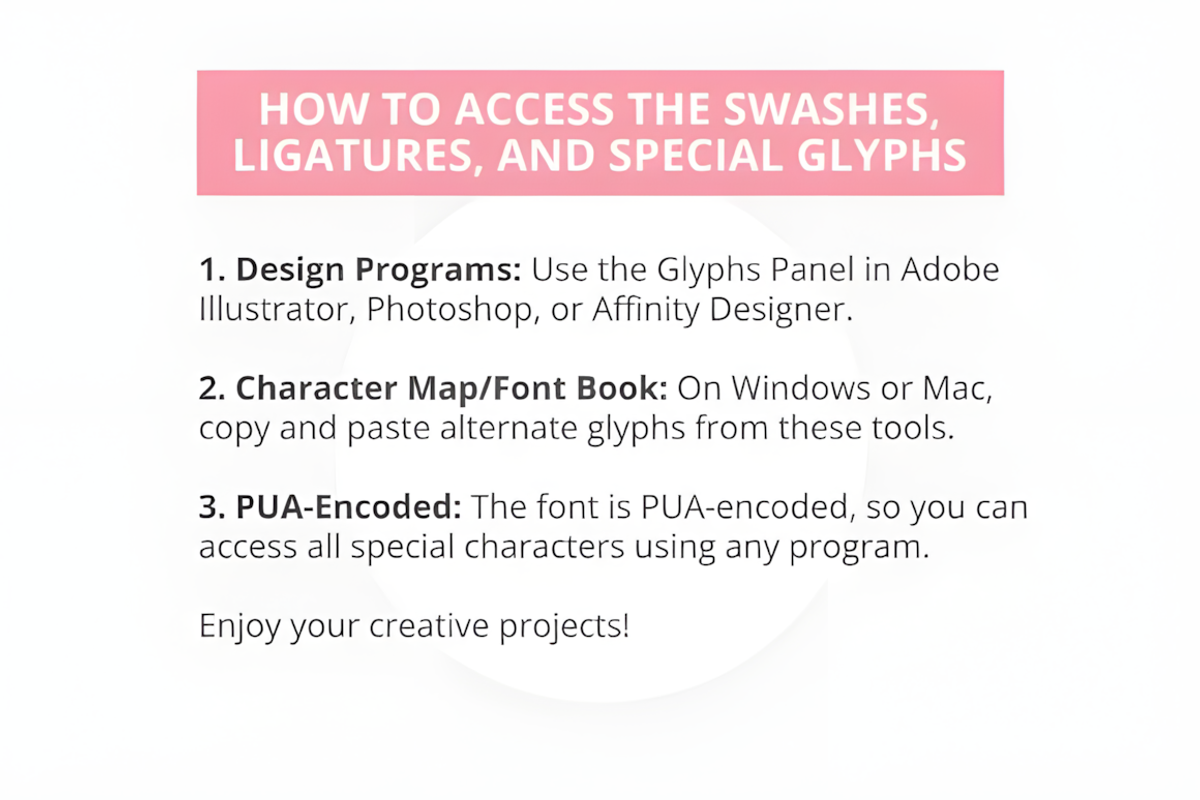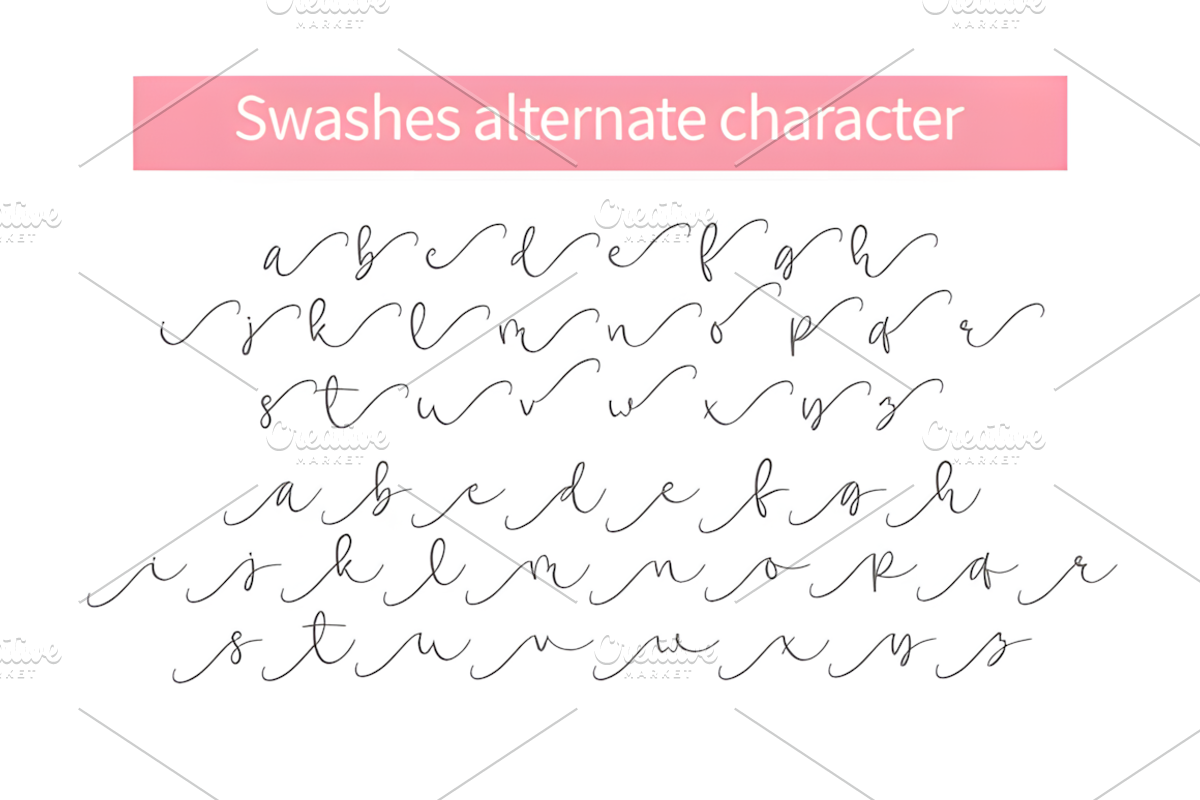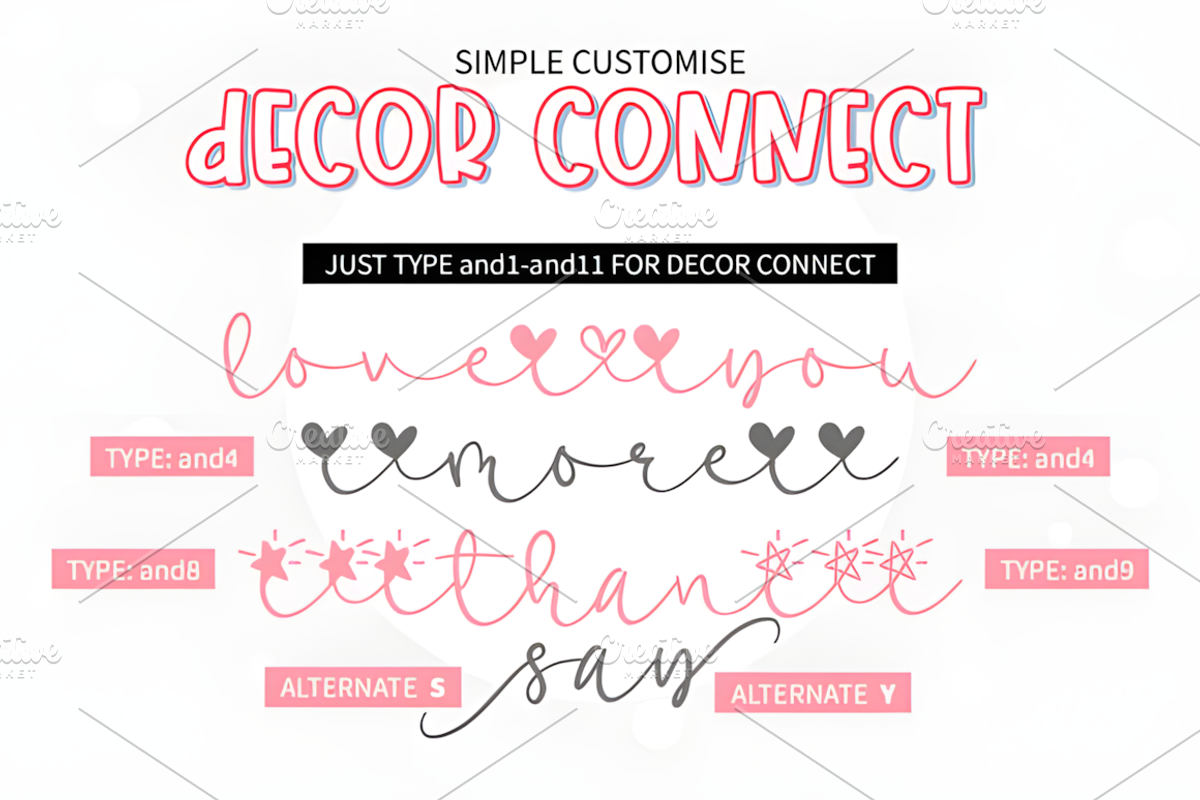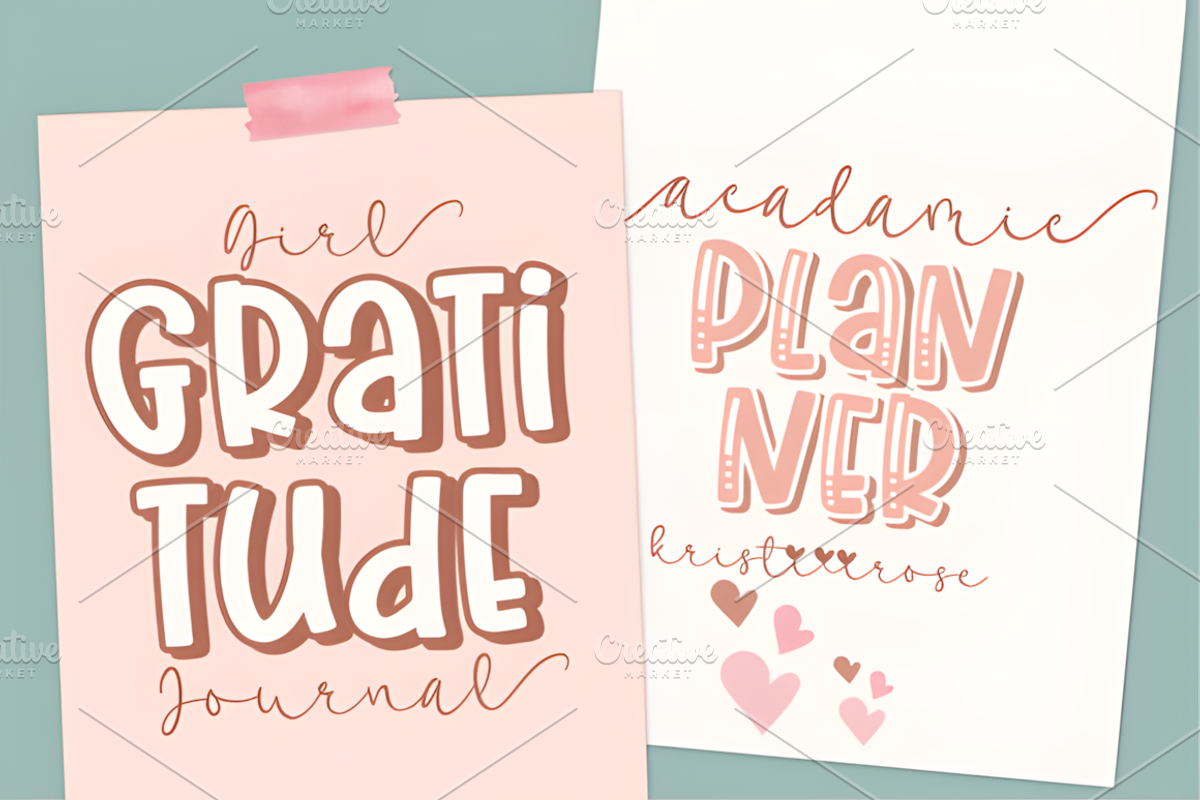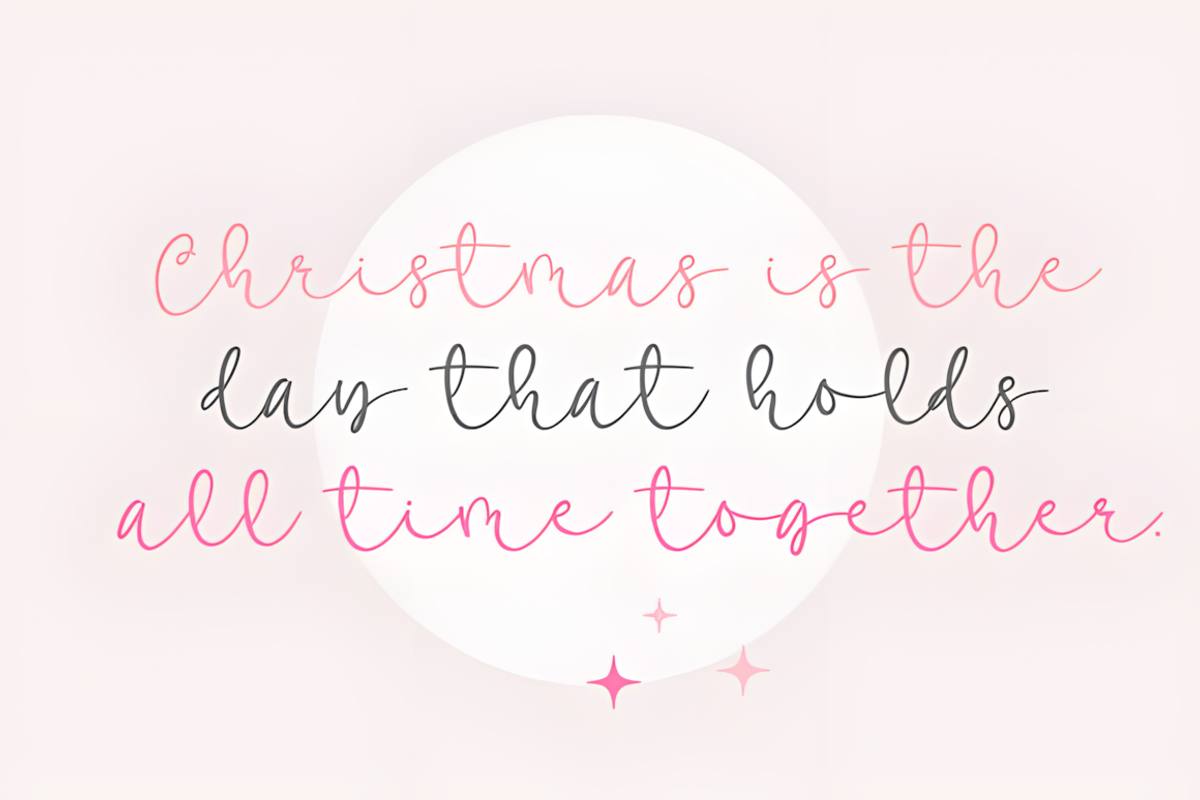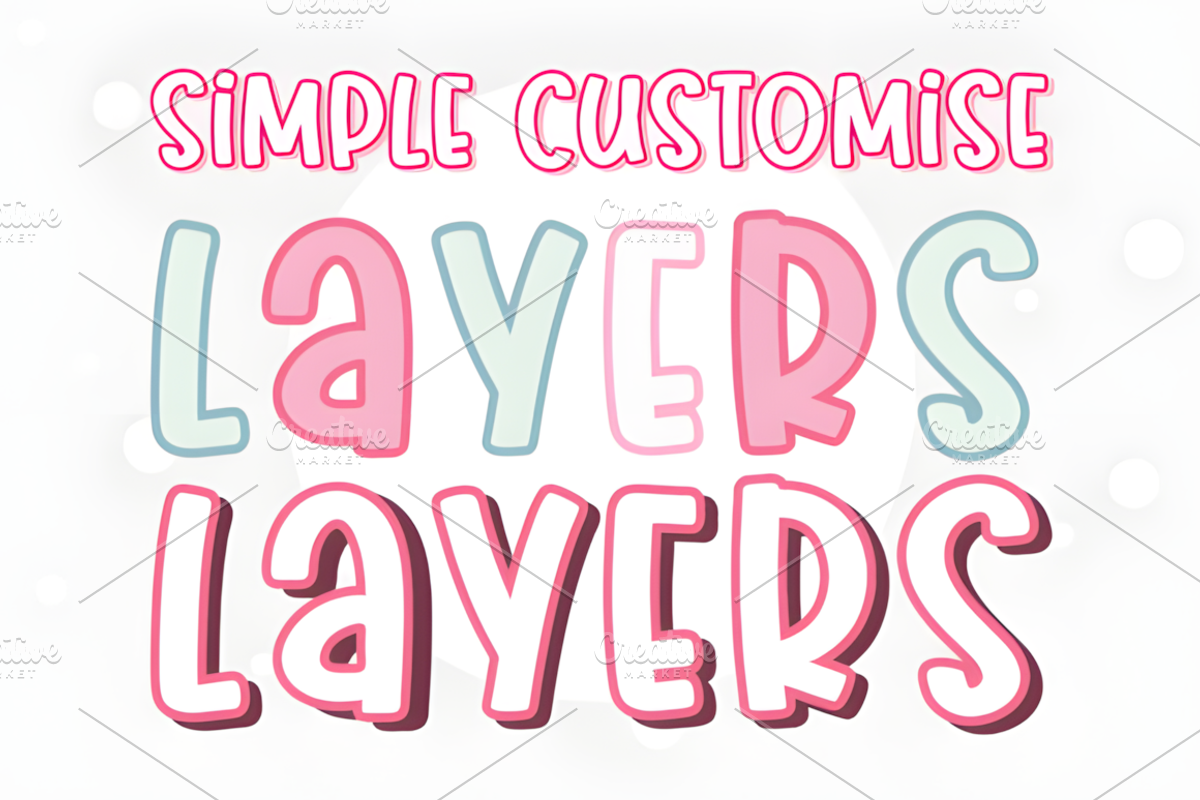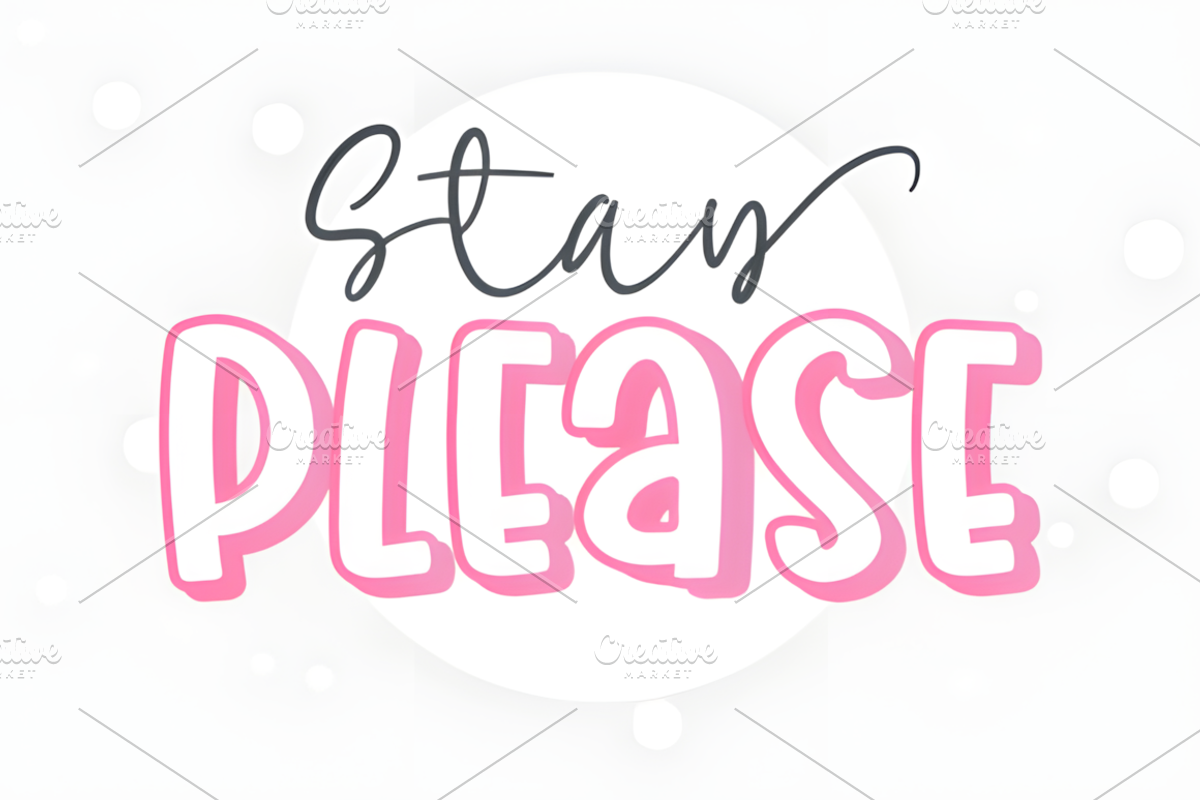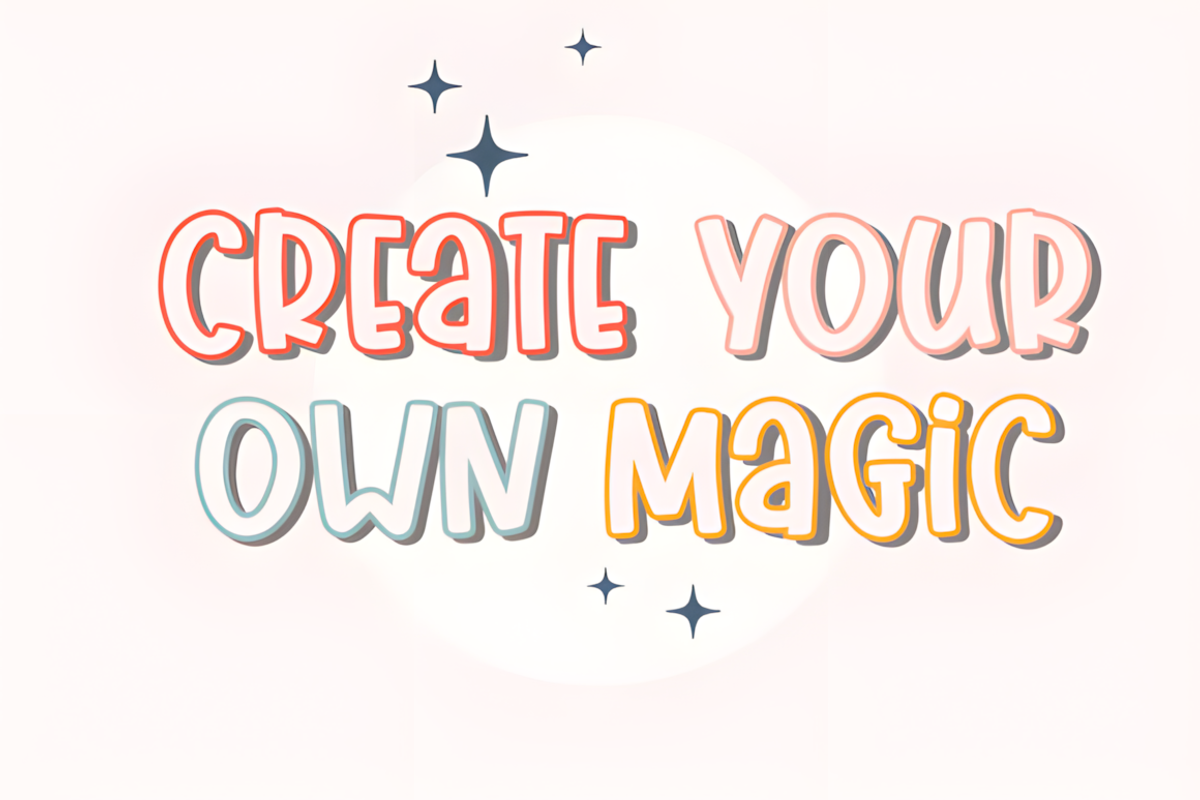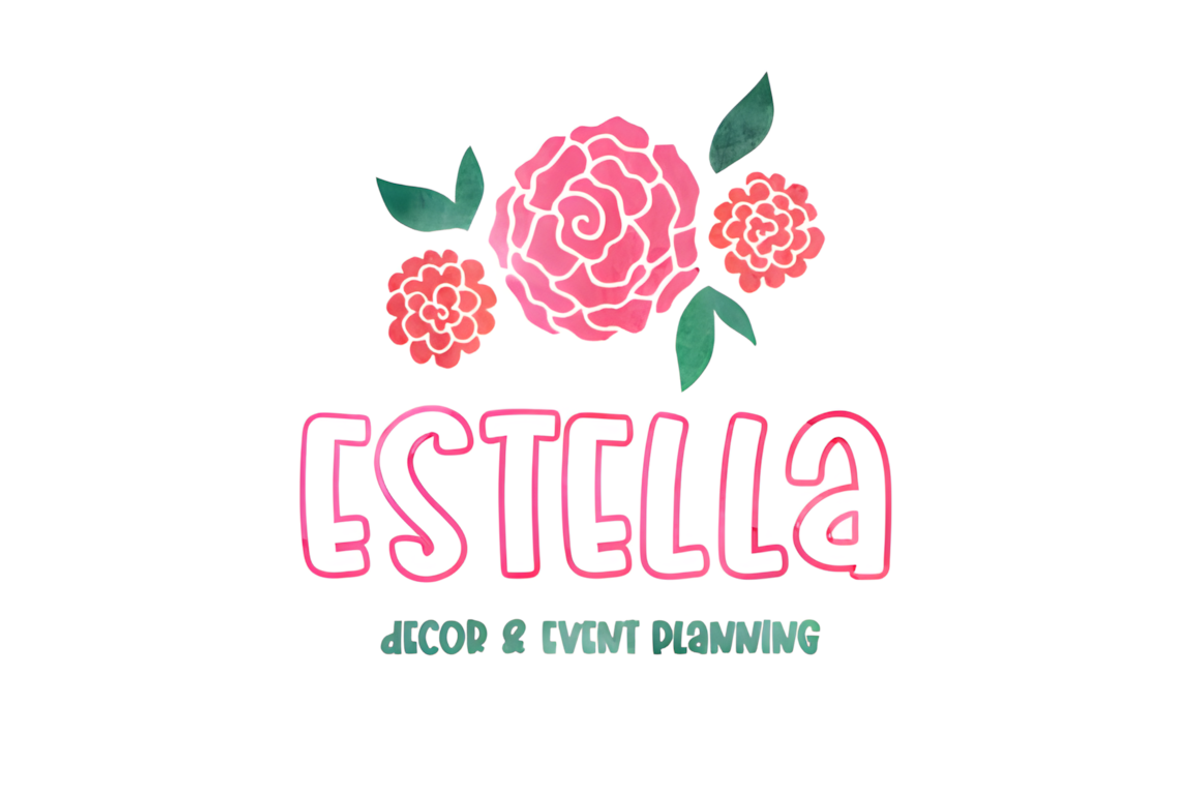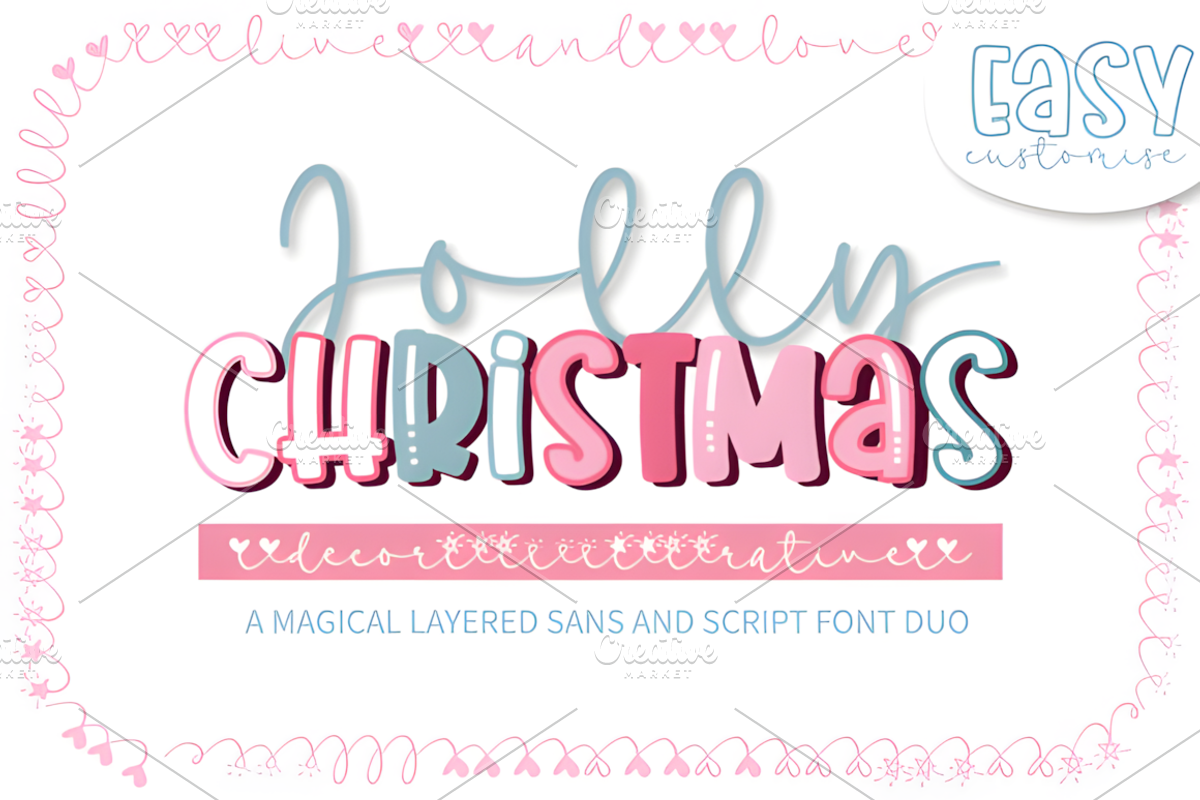
Jolly Christmas Font
Jolly Christmas is a casual handwritten font duo with layer style. Its natural and unique style makes it suitable for a variety of design ideas. Add it confidently to your projects, and you will love the results.